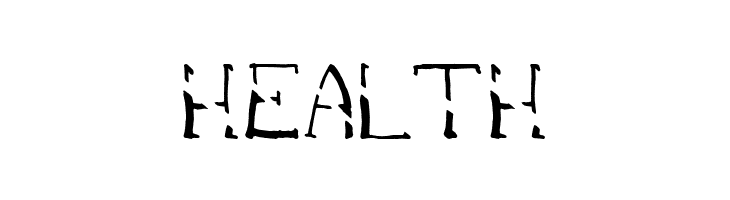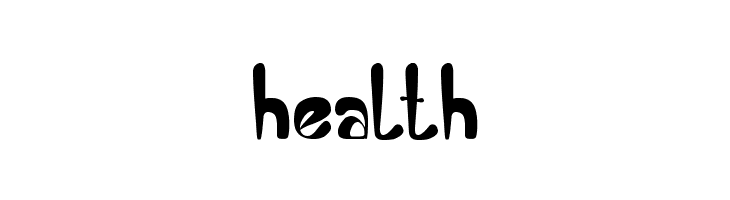
( cody - Codin Repsch )
A bold, rounded font with smooth curves and uniform strokes.
A bold, jagged, hand-drawn font with a playful, graffiti-like style.
A bold, rugged font with jagged edges and a dynamic, hand-cut appearance.
( Filiz Sahin - www.filizsahin.com )
A tall, narrow, and modern font with clean lines and tight spacing.
( Filiz Sahin - www.filizsahin.com )
A bold, playful font with rounded, elongated characters and a modern, handwritten style.
( Filiz Sahin - www.filizsahin.com )
A tall, narrow, and modern condensed font with uniform stroke widths.
( N ! C E )
A bold, graffiti-inspired outlined font with angular, geometric characters.
( Fonts by Impallari Type )
A modern, rounded sans-serif font with bold weight and excellent readability.
( Fonts by Impallari Type )
A modern, rounded sans-serif font with bold, uniform strokes and high legibility.
( Fonts by Impallari Type )
A modern, extra-light sans-serif font with a clean and minimalistic design.
( Fonts by Impallari Type )
A clean, geometric sans-serif font with a modern and minimalistic style.
( Fonts by Impallari Type )
A modern, rounded sans-serif font with clean lines and geometric shapes.
( Fonts by Impallari Type )
A modern, rounded sans-serif font with a clean and approachable design.
( Fonts by Impallari Type )
A modern, rounded sans-serif font with excellent readability.
A playful, dot-connected font with a whimsical and artistic style.
A dotted outline font with a playful and modern aesthetic.
A bold, ornate blackletter font with intricate, gothic-style letterforms.
( Fonts by Untitled Motion )
A playful, polka-dotted decorative font with bold, rounded characters.
( Fonts by Untitled Motion )
A bold, dotted font with a playful and dynamic pop art style.
A pixelated, retro-style font with a blocky, 8-bit aesthetic.
( Fonts by Goma Shin - Shintarou Nakayama www.geocities.jp/gomarice_font/ )
A bold, playful font with thick, rounded characters ideal for fun and whimsical designs.
A bold, playful font with thick, rounded characters and a whimsical style.
A bold, angular font inspired by ancient runic scripts, ideal for fantasy themes.
A bold, decorative script inspired by ancient runic alphabets with a mythical and adventurous style.
A bold, italicized font with angular, rune-like characters.
A dynamic, angular font with a runic, italicized style.
( Fonts by Neale Davidson - www.pixelsagas.com )
A bold, angular font with a runic, fantasy-inspired design.
A decorative, dice-inspired font with numbers and dots inside pentagonal shapes.
Numerals inside dodecahedron shapes with a clean, geometric sans-serif style.
A decorative font featuring numbers inside icosahedron dice shapes.
Geometric, dice-themed symbol font with numbers, directions, and dots.